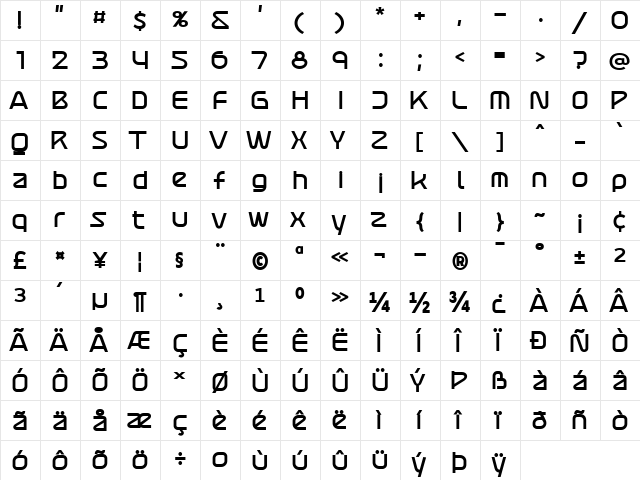
Atures 700 PERSONAL USE ONLY Regular
| Foundry | Mans Greback |
| Designer | Mans Greback |
Design Context for Atures 700 PERSONAL USE ONLY Typeface
Atures 700 PERSONAL USE ONLY takes a measured approach to typography — its balanced proportions and neutral character make it a reliable workhorse for both digital and print work.